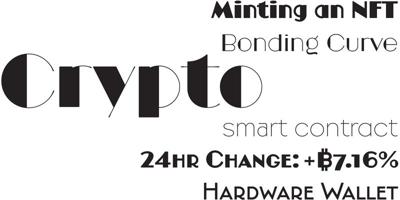
Fou Mixed Pro Font is perfect for creative agency branding, artistic portfolios, experimental poster designs, fashion magazines, music album covers, avant-garde advertising campaigns, contemporary art exhibitions, and innovative digital projects.
Fou Mixed Pro Font is exciting because it boldly combines multiple typographic styles and weights within a single cohesive system, creating a dynamic visual language that challenges traditional design conventions and empowers designers to express complex creative concepts with unprecedented typographic freedom and artistic flair.
The Fou Mixed Pro Font family includes various weights and styles such as Regular, Bold, Light, Italic, Condensed, Display, and Mixed versions, providing designers with an extensive toolkit for creating diverse typographic compositions that maintain harmony while celebrating individual character personalities.
Fou Mixed Pro Font Free Download represents a revolutionary approach to contemporary typography design, offering creative professionals an unprecedented level of typographic expression and artistic freedom. This groundbreaking typeface pushes the boundaries of traditional font design by seamlessly blending multiple stylistic elements into a cohesive yet dynamically diverse typographic system.
The font's innovative character set features varying stroke weights, mixed proportions, and alternating stylistic elements that create visual rhythm and movement within text compositions. Each letterform has been carefully crafted to work both independently and collectively, ensuring that Fou Mixed Pro Font delivers consistent impact while maintaining readability across various applications.
Professional designers working in creative industries appreciate this font's ability to convey innovation and artistic sophistication. The typeface excels in applications where conventional typography falls short, from experimental branding projects to cutting-edge editorial designs, from artistic installations to digital art platforms. Its unconventional approach makes it perfect for brands seeking to differentiate themselves through bold visual statements.
The comprehensive character set includes extensive language support and special alternates, making it suitable for international creative projects while preserving its distinctive experimental character. Whether used for headlines, artistic compositions, or mixed-media applications, this font delivers unique visual impact that sets projects apart from conventional designs.
Creative professionals and design studios have embraced Fou Mixed Pro Font for its unique ability to transform ordinary text into extraordinary visual experiences. Its versatility allows it to adapt to various creative contexts while maintaining its rebellious spirit and artistic integrity.
This remarkable typeface has become an essential tool for designers who understand that typography can be both functional communication and artistic expression, bridging the gap between traditional design principles and contemporary creative experimentation.